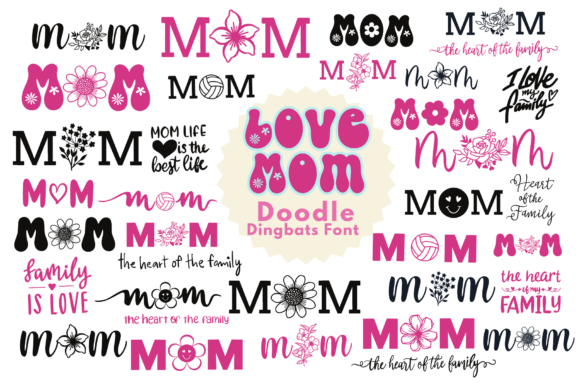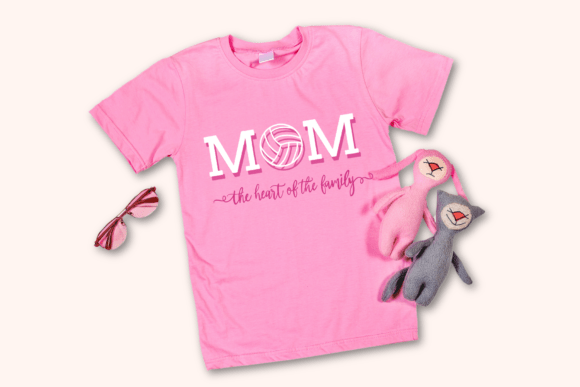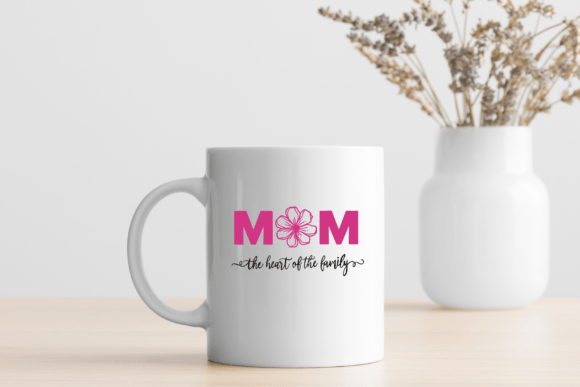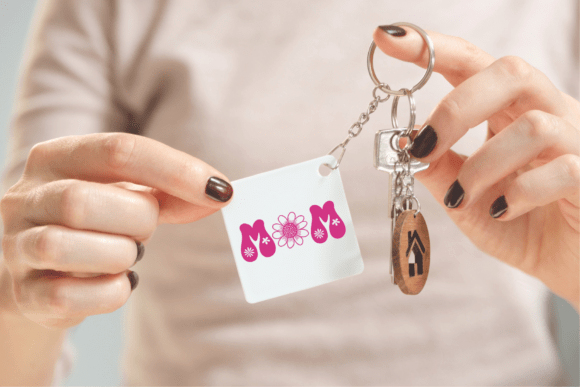
Love Mom Doodle Font
About the Love Mom Doodle Font
Presenting Love Mom Doodle Font, a unique and stylish typeface that will make your work stand out. Celebrate motherhood in style with the Love Mom Dingbats Font! This decorative dingbats font features a charming collection of “mom life” inspired graphics from bold “MOM” word art to elegant script phrases like “the heart of the family” Perfect for Mother’s Day crafts, t-shirts, mugs, greeting cards, scrapbooking, and vinyl projects. Each glyph is crafted with love to help you create heartfelt designs effortlessly.
This font’s playful, friendly personality makes it ideal for projects celebrating motherhood, family, or other heartwarming themes. It excels in headlines, short phrases on greeting cards, social media graphics, and packaging for related products. Avoid using it for large bodies of text or UI elements where readability is paramount; its decorative nature compromises legibility in extended use.
Pair it with a clean sans-serif font like Open Sans for a balanced contrast, or a more elegant serif like Lora for a sophisticated feel. For a more whimsical look, consider pairing it with a script font like Great Vibes, but use sparingly to avoid visual clutter.
The overall aesthetic is best suited for brands focused on warmth, family, and handmade crafts. It may not be appropriate for corporate branding or projects requiring a modern, minimalist approach.
Love Mom Doodle Font Usage Examples
Love Mom Doodle Font Example